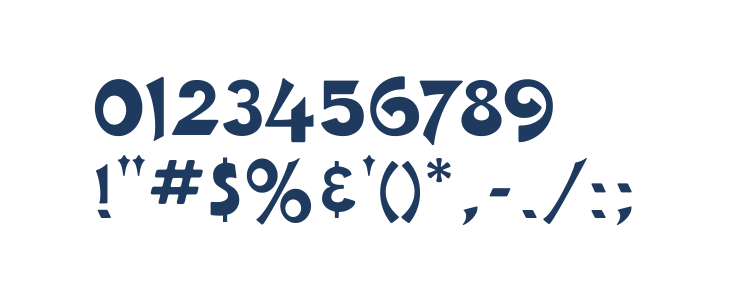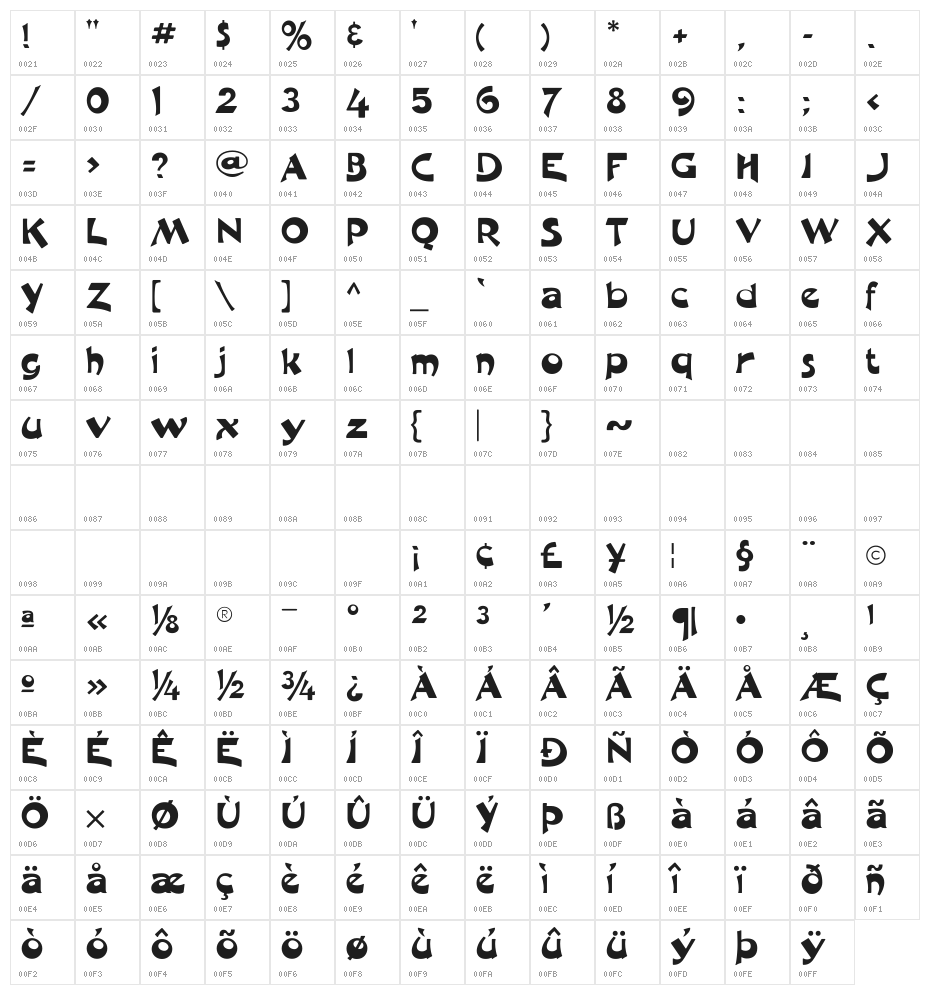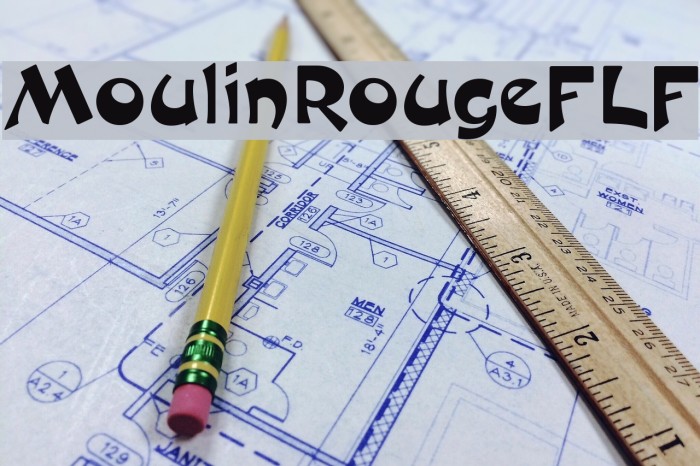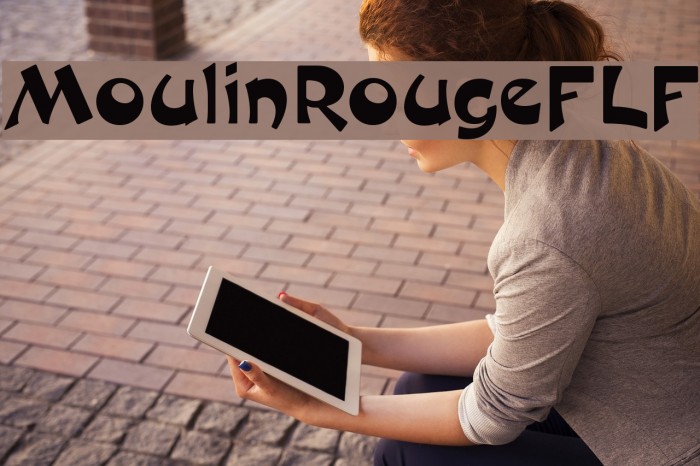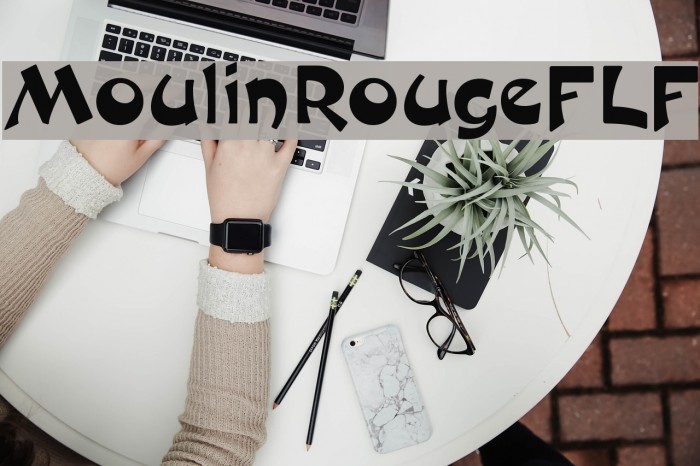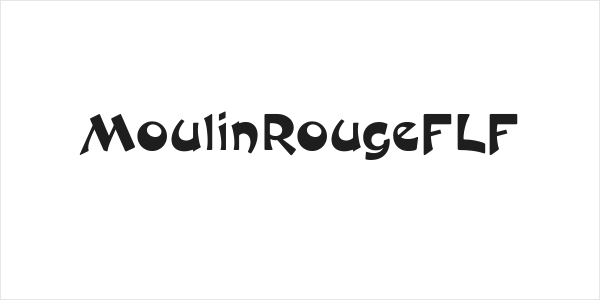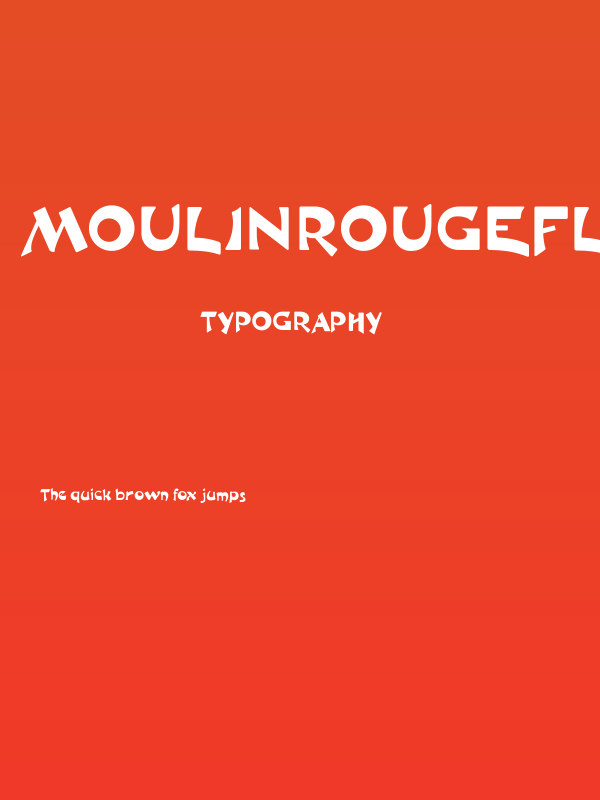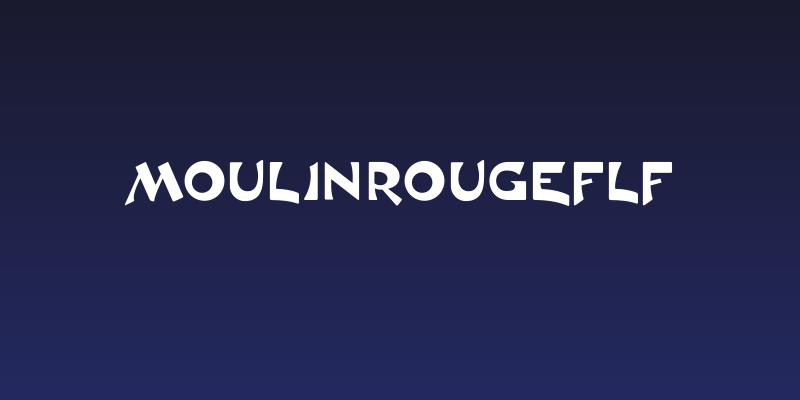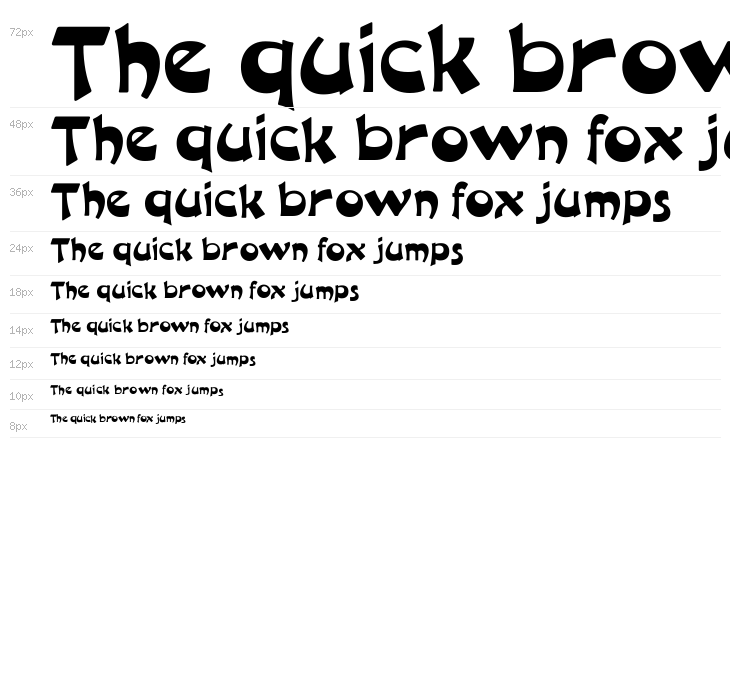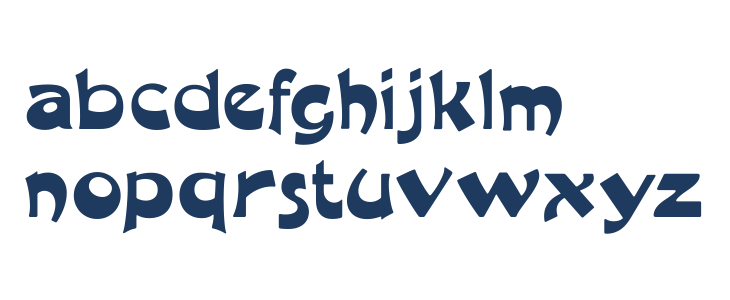
MoulinRougeFLF Font
MoulinRougeFLF Description
This font features a bold and playful design with a distinct theatrical flair. The characters are crafted with a unique blend of sharp angles and smooth curves, creating a dynamic and eye-catching appearance. The uppercase letters exhibit a strong presence with exaggerated serifs and varying stroke widths, while the lowercase letters maintain a whimsical yet balanced look. Numerals are bold and consistent, ensuring readability. Special characters are creatively styled, adding to the font's overall charm and versatility. This font is ideal for projects that require a touch of drama and creativity.